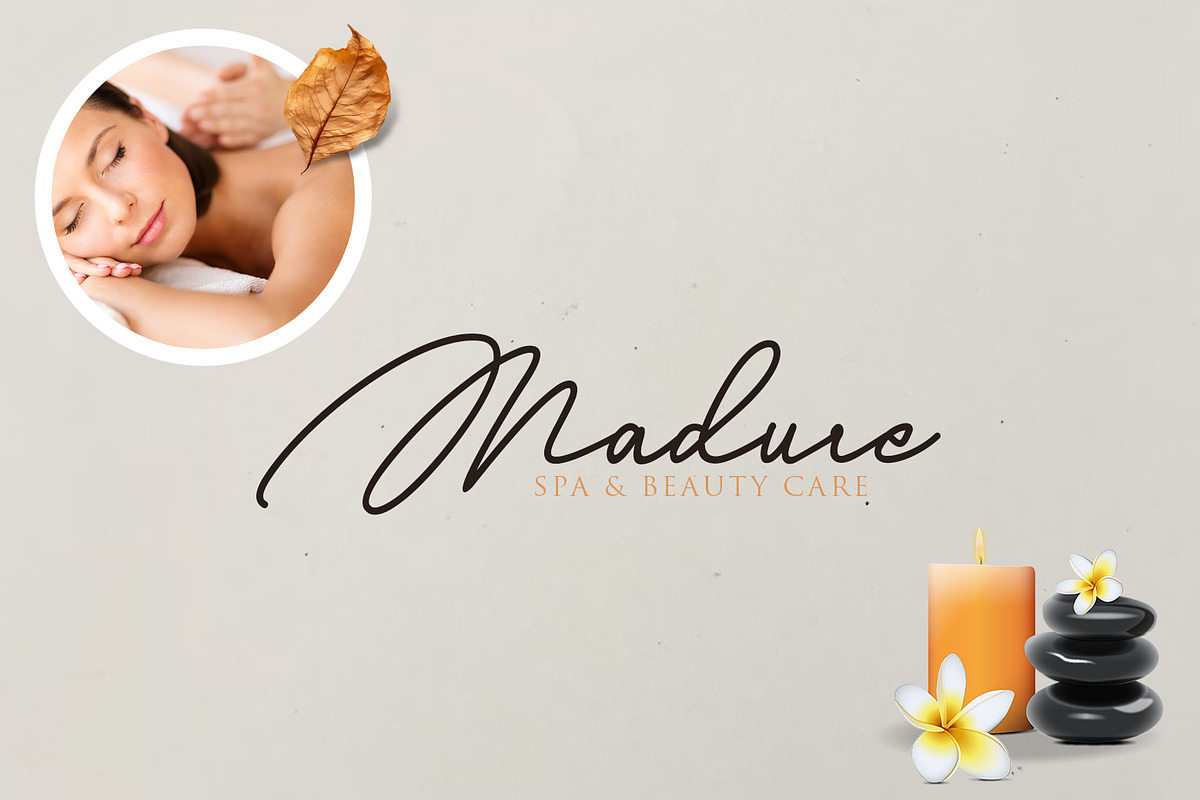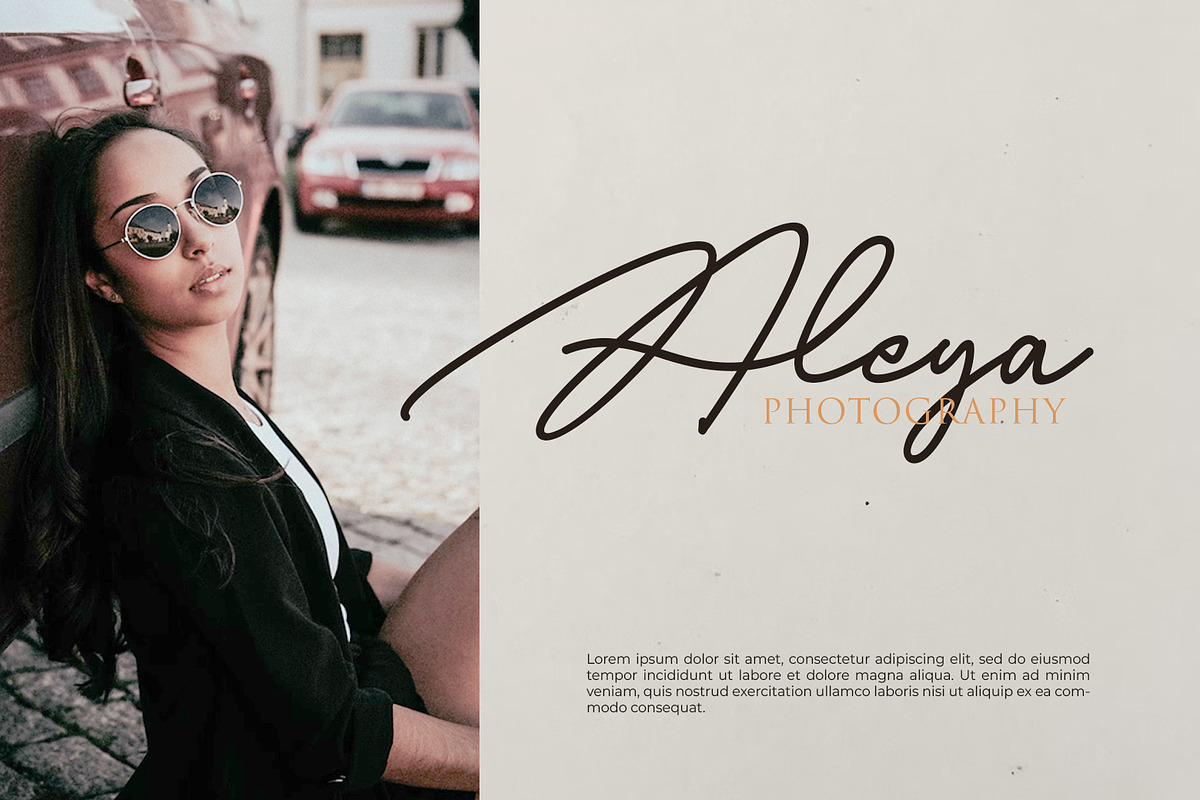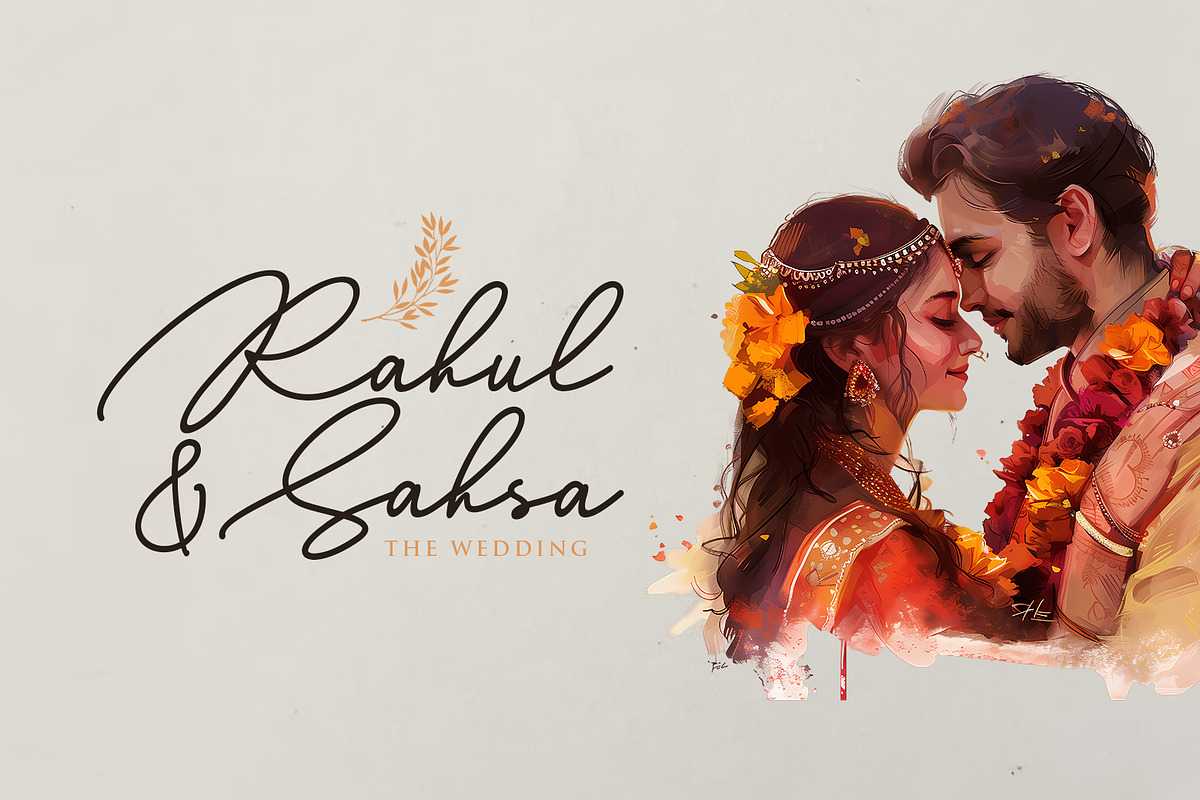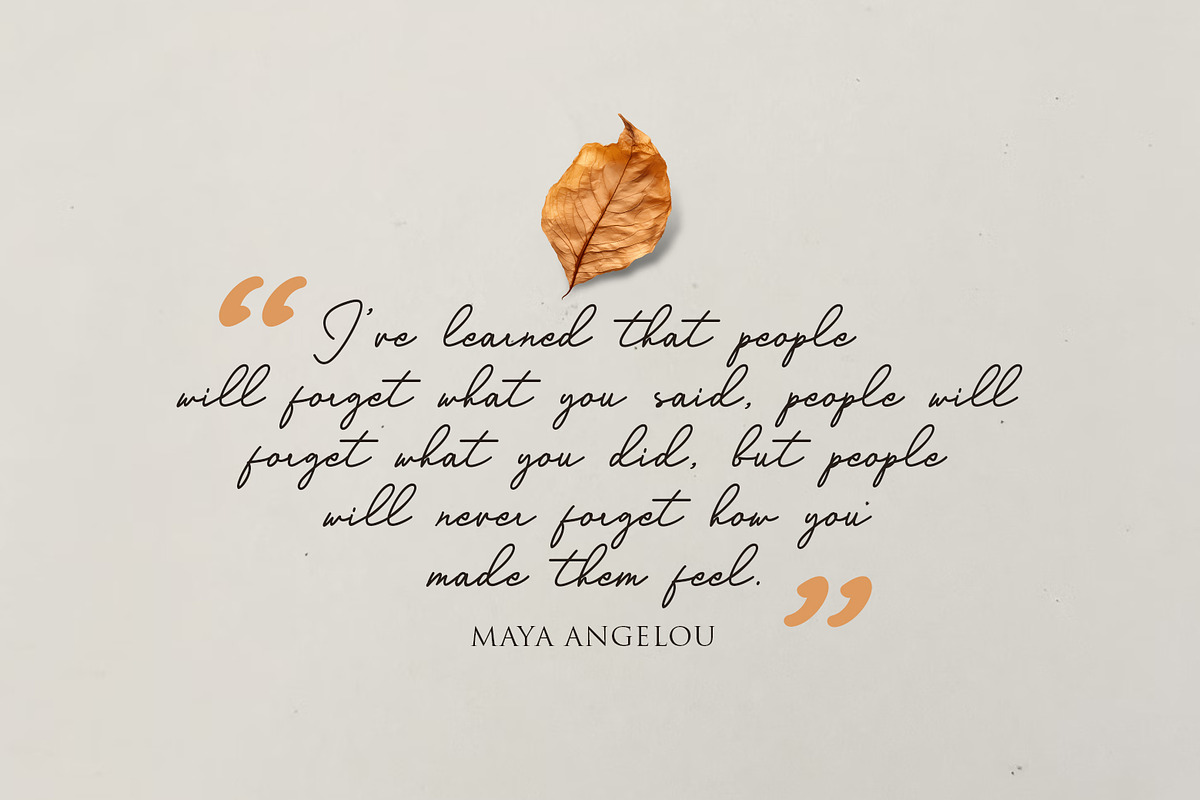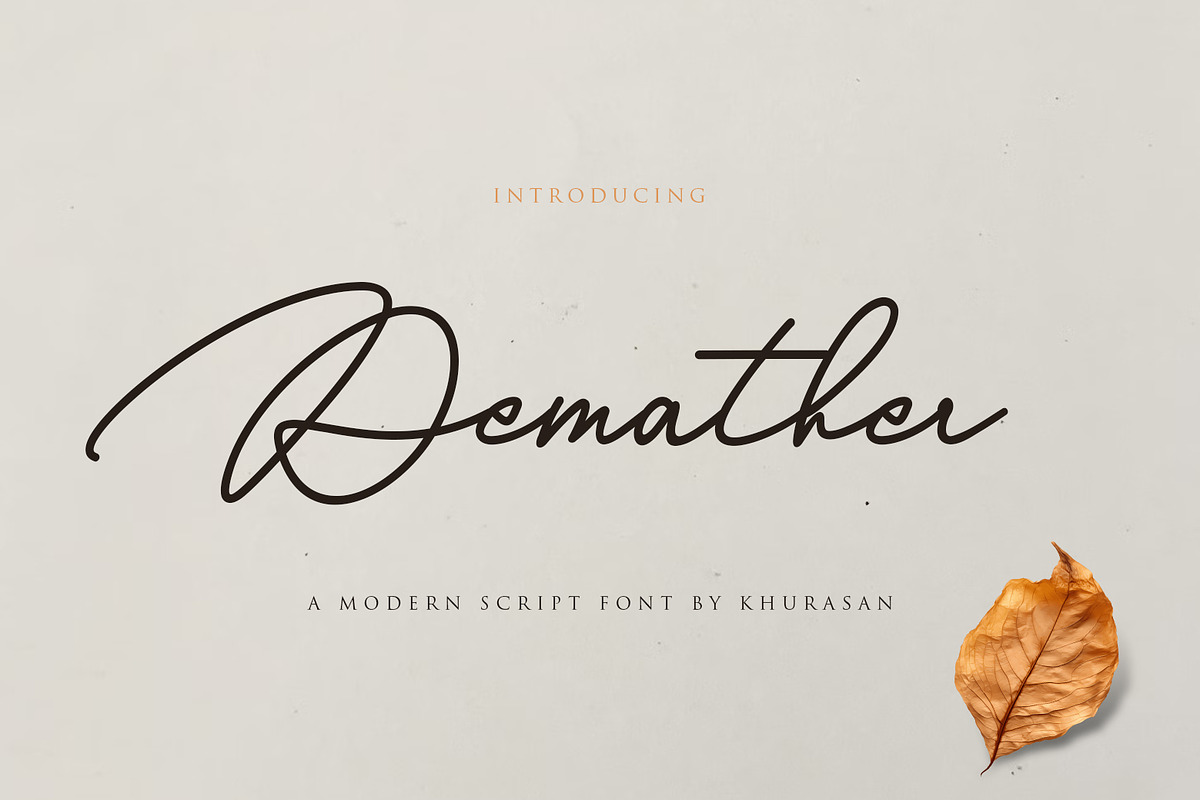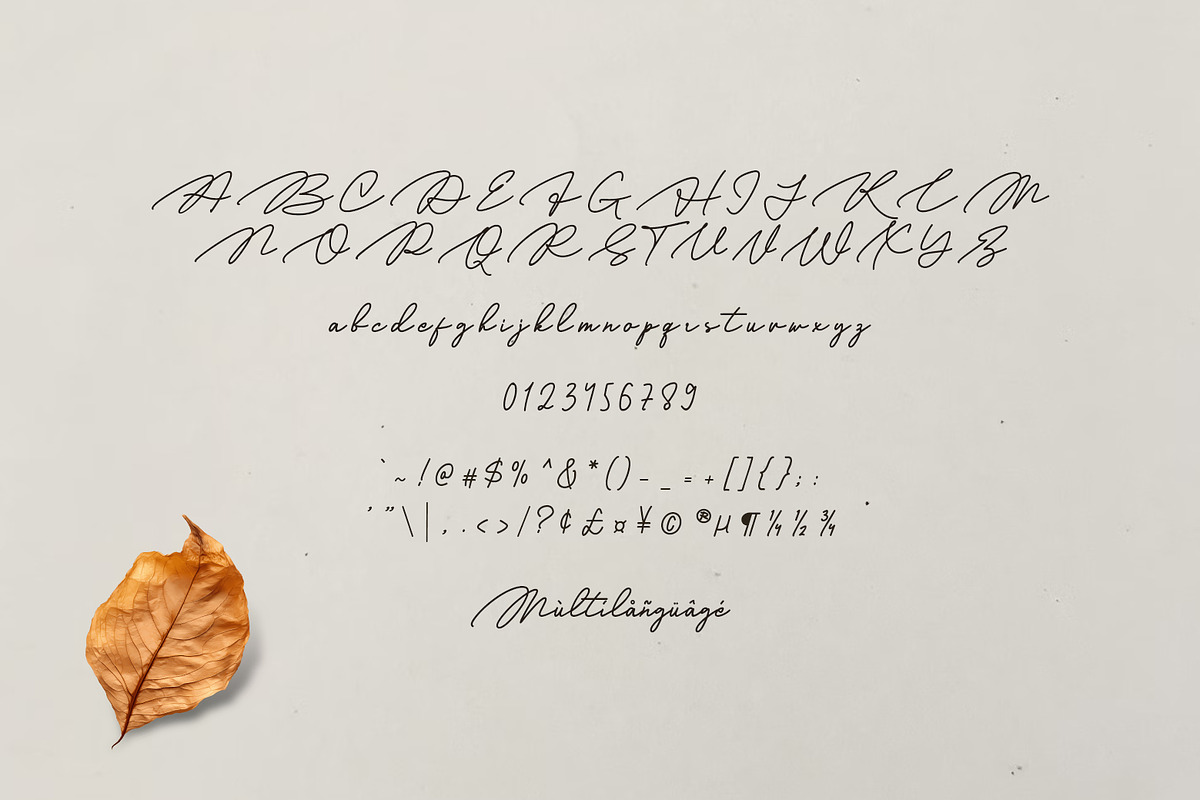
Demather Script
Demather is a modern and cute display font perfect for posters, logos, magazines, book covers, banners, and many more! Get this amazing font, and use it to create lovely designs. It can easily be matched to an incredibly large set of projects, so add it to your creative ideas and notice how it makes them stand out!
Demather font suitable for logo, branding, greeting card, poster and any design that you create.